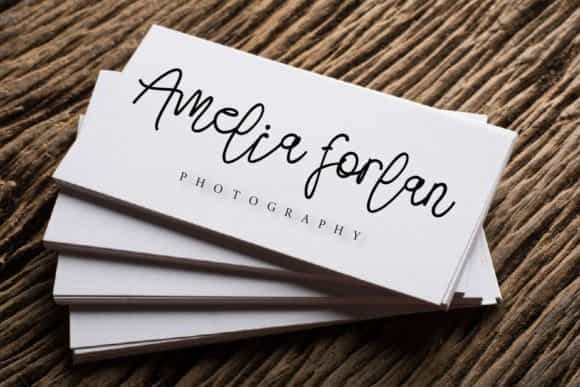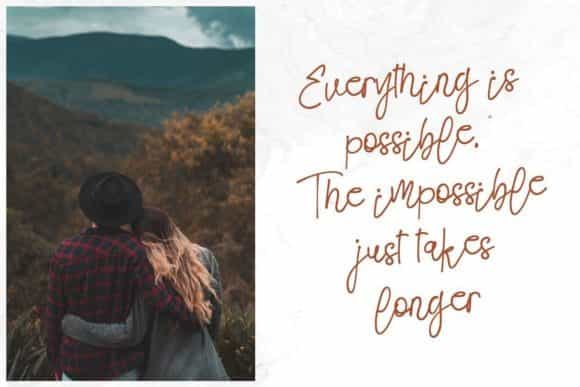
Ayesha Burns is a new modern calligraphy Script fonts, which unites copperplate with the contemporary typeface and has classic and elegant look. With the bouncy extra curves and loops, Ayesha Burns is sure to make your text pop – great for logos, printed quotes, invitations, cards, product packaging headers and anything you can think of.